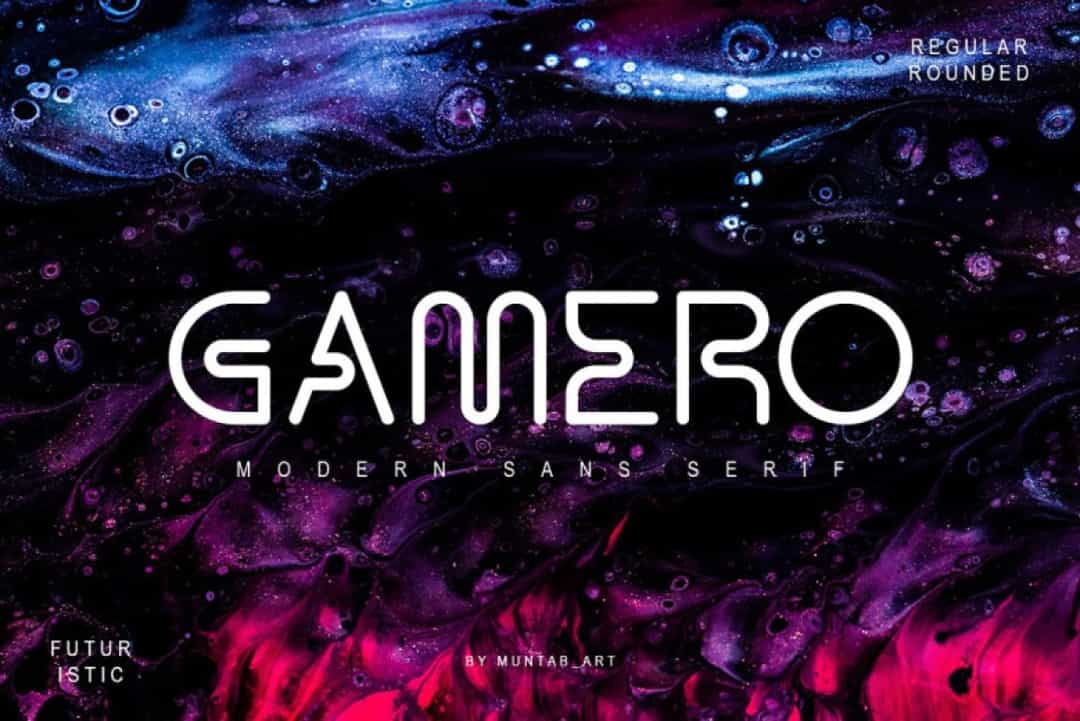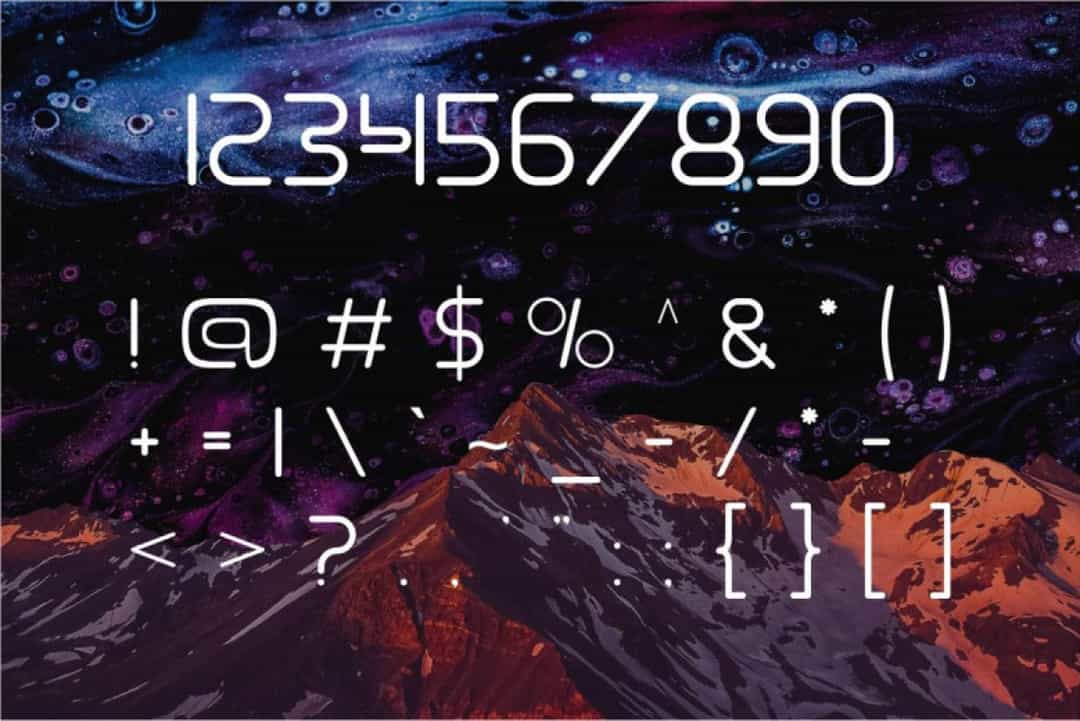
Gamero Sans Serif Font features uppercase numerals, letters and multiple punctuation options in a contemporary font style that makes use of Sans Serif fonts. Developed for poster designs, branding campaigns, website badge designs and illustrations amongst other applications – this font was specifically made to add visual interest.